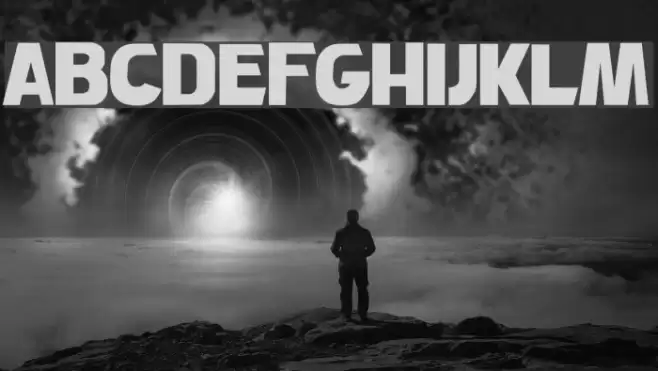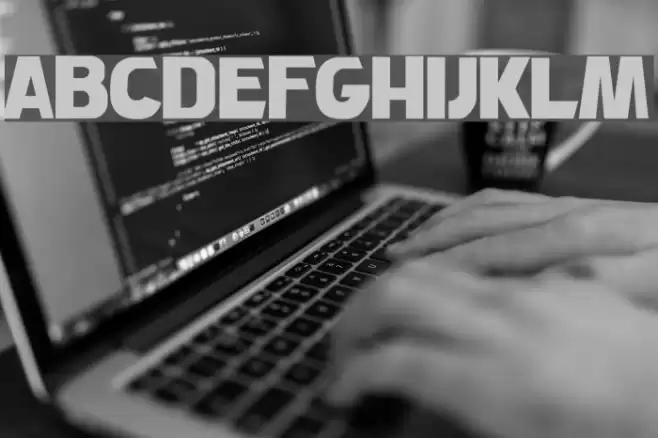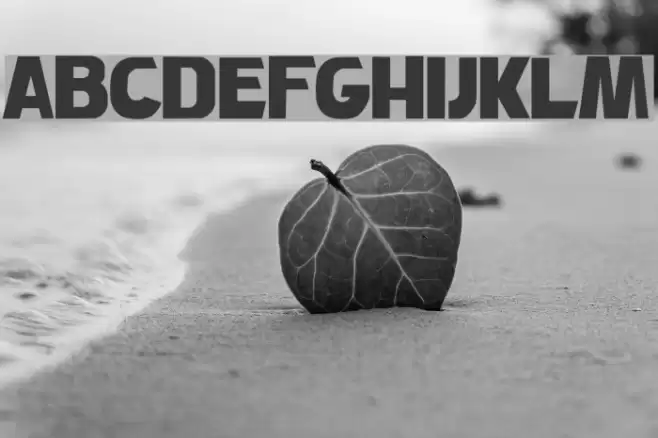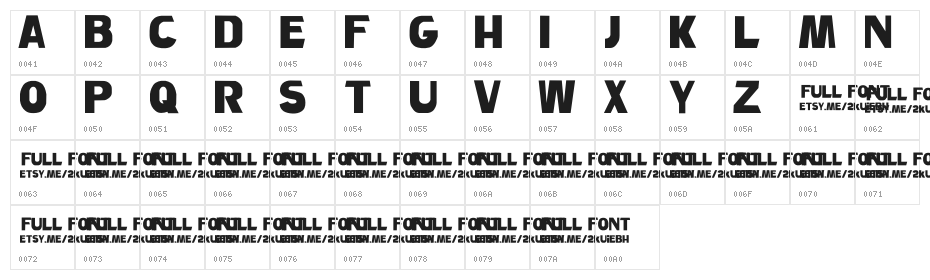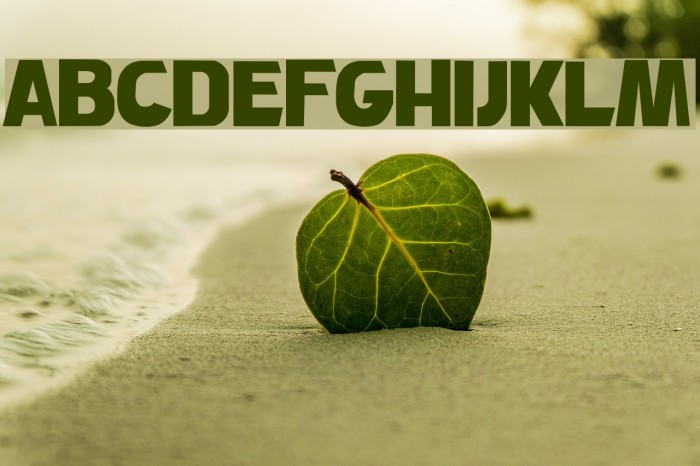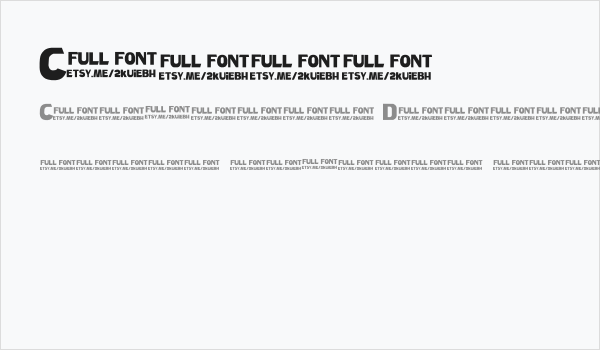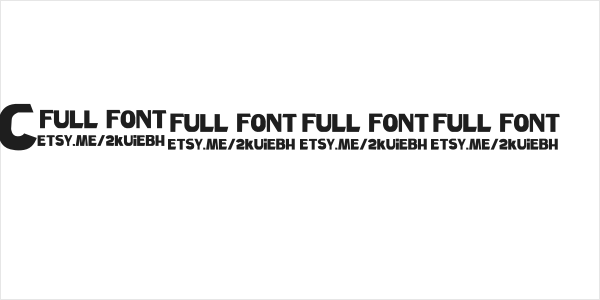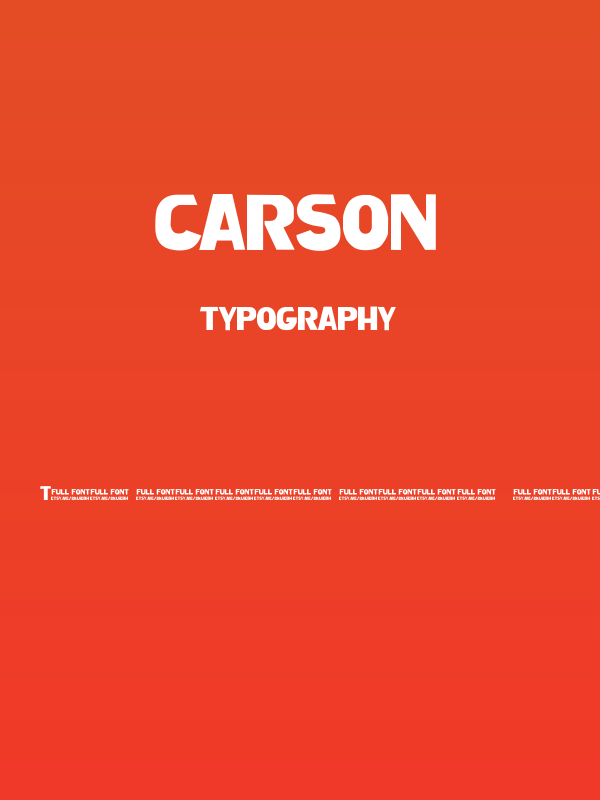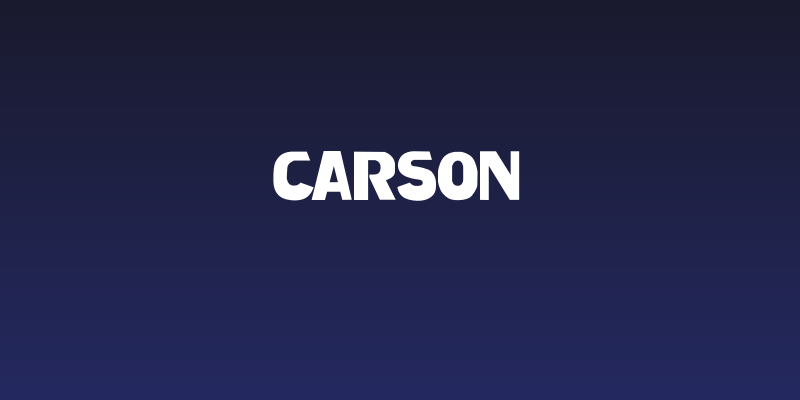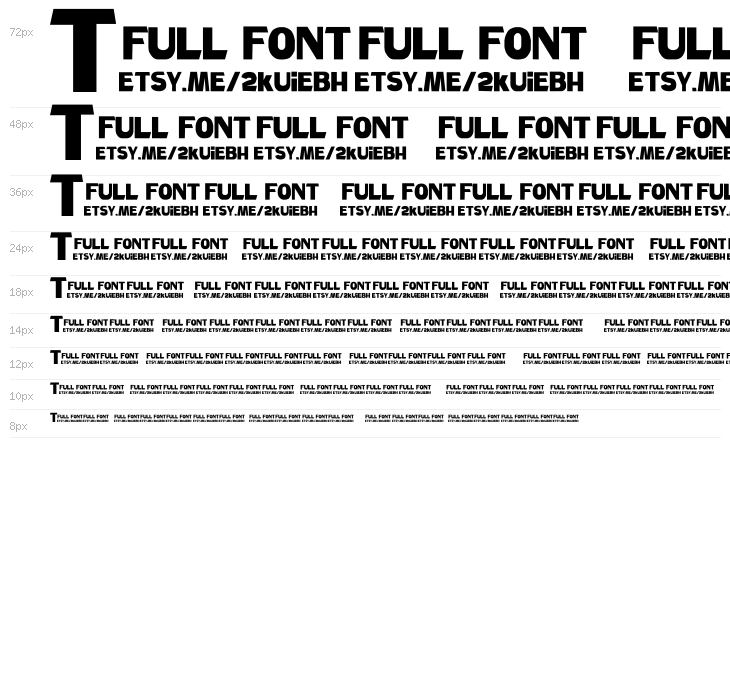
Carson Font
Carson Description
This font features bold, geometric letterforms with a strong presence. The uppercase letters are characterized by their thick strokes and angular shapes, giving them a modern and assertive look. The design is clean and straightforward, with a focus on clarity and impact. The font's style is consistent across all characters, maintaining a uniform appearance that enhances readability. Its boldness makes it suitable for attention-grabbing headlines and titles. The overall aesthetic is contemporary, making it ideal for modern design projects that require a strong visual statement.
A bold, geometric font with a modern and assertive style from Uncategorized fonts.
- Proposed Projects: Ideal for branding, posters, headlines, and any design requiring a strong visual impact.